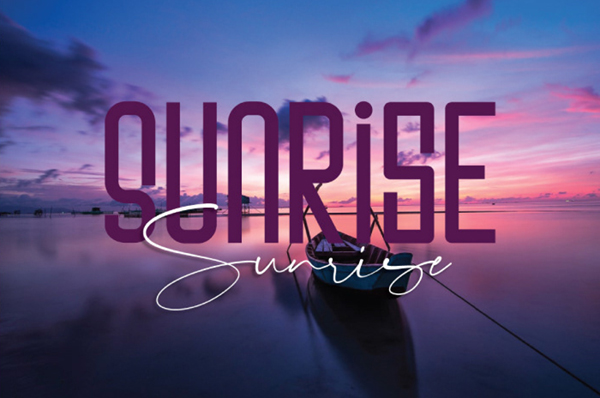
The font duo of Escucha Consuela offers two typefaces meant to work in harmony from brands to social media imagery to ads. The boldness of Escucha’s modern/retro forms contrasts nicely with the airiness of the Consuela script.